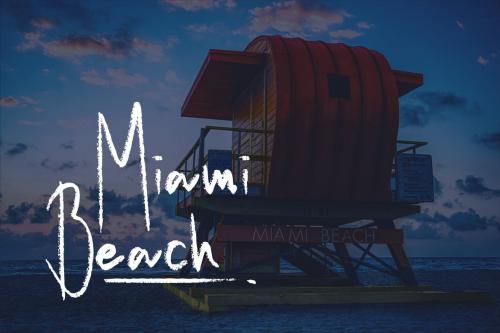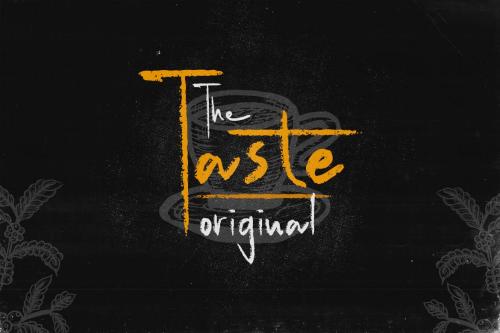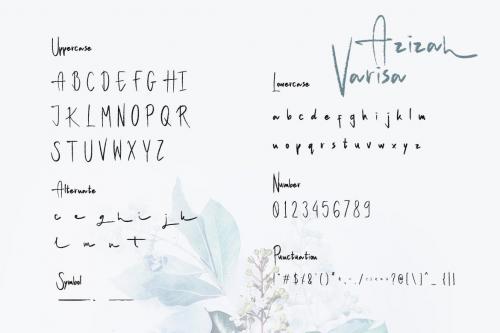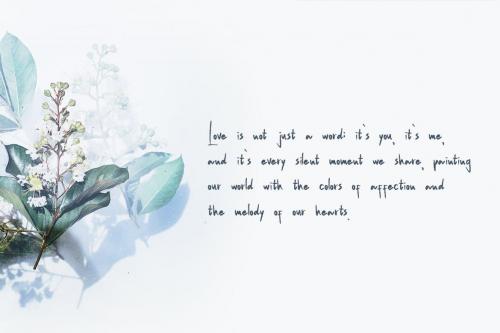
Azizah Varisa Script Handwritten Brush
Azizah Varisa Font is a font with distinctive handwritten characters perfect for branding projects, logos, wedding designs, media posts, advertisements, product packaging, product designs, labels, photography, watermarks, invitations, stationery, and any project who need handwritten dishes.
**Featured:**
+ Uppercase
+ Ligature
+ Punctuation
+ Number
+ Symbol